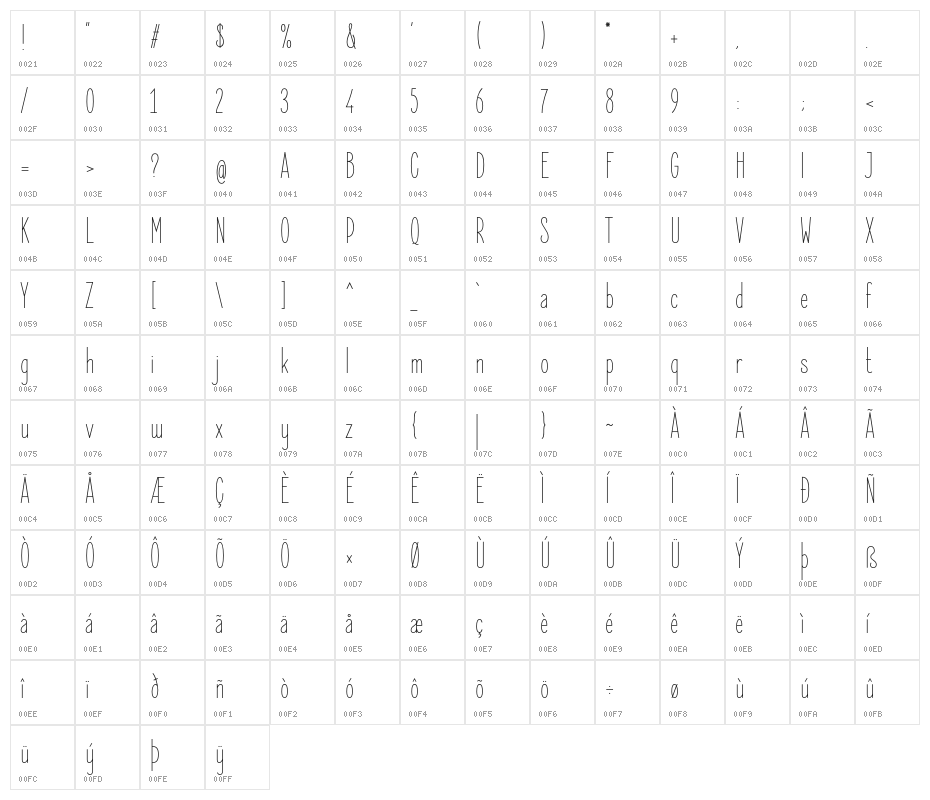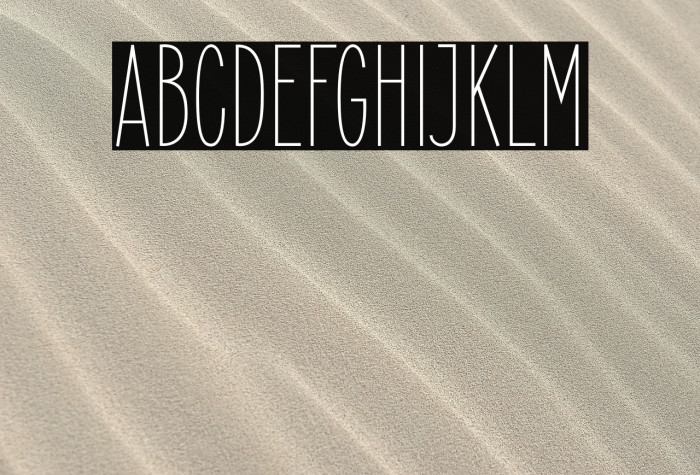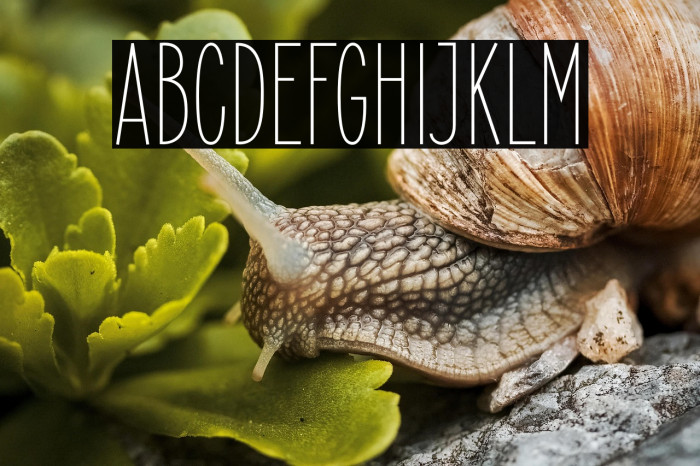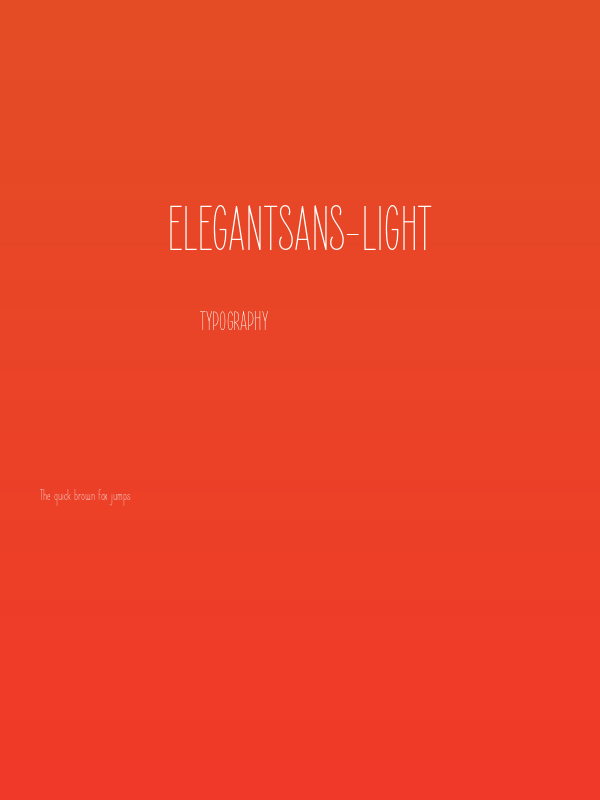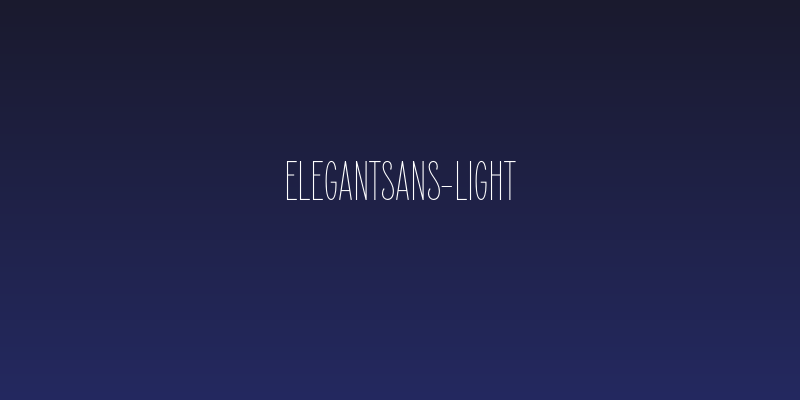
ElegantSans-Light Font
ElegantSans-Light Description
This font features a sleek and modern sans-serif design with a light weight, offering a clean and elegant appearance. The characters are tall and narrow, with a consistent stroke width that provides a uniform look. The uppercase letters are slightly taller than the lowercase, maintaining a harmonious balance. The numerals are proportionate and align well with the overall style. Special characters are included, matching the font's minimalist aesthetic. The font's simplicity and clarity make it suitable for a variety of design applications.
| Proposed Projects | Ideal for minimalist branding, editorial design, web design, and modern advertising. |